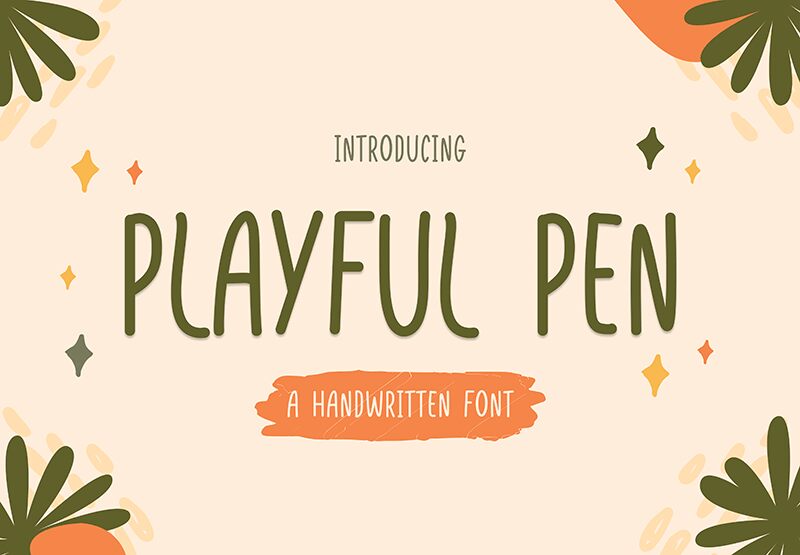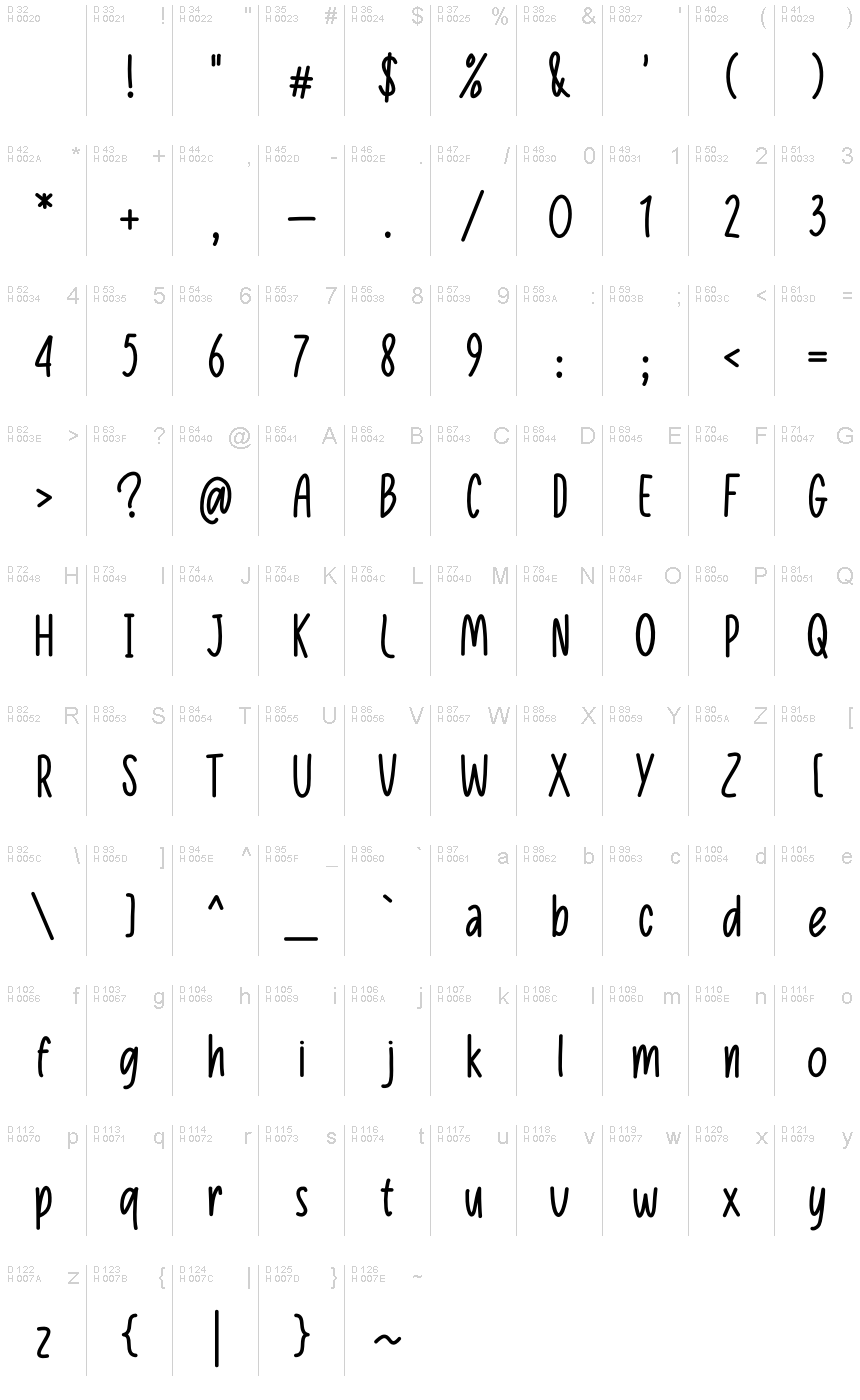
Playful Pen Regular
Playful Pen font by Designaja Studio is a handwritten typeface with smooth condensed strokes. With slightly irregular lines, the font expresses freedom, playfulness, and joy which establishes it as an informal body text or header font. When it comes to typography projects that require originality and laid-back mood this free font can do the job perfectly.
Use Playful pen for book titles geared towards children even those in coloring books to make your subjects interesting from cover to cover. Use it as the main typeface or alongside other fonts with stylistic contrasts to create invitations for weddings and other events held in raggedy barns on summer evenings. Be creative when designing T-shirts, labels, posters, banners, brochures, etc.